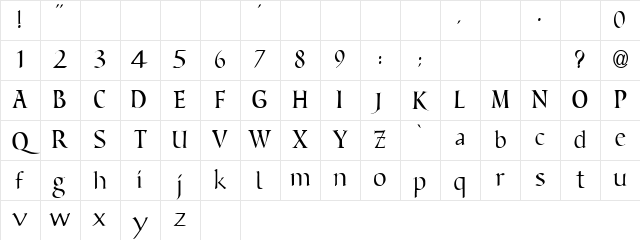
Benevento!" Regular
Design Context for Benevento!"
Benevento!" is a composed and adaptable typeface that performs quietly and consistently across a wide range of design contexts.
Pro Tip: Use Benevento!" in both headline and body roles to test its range before committing to a single application.